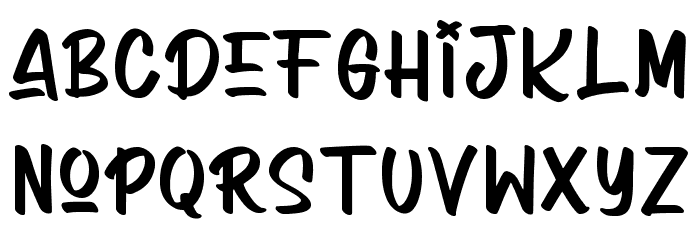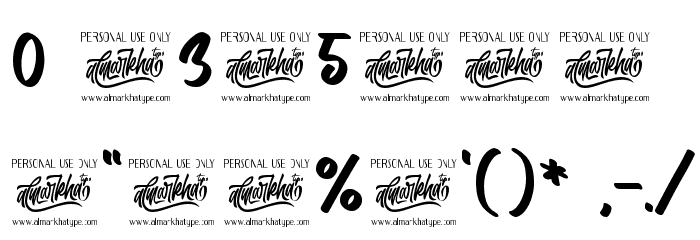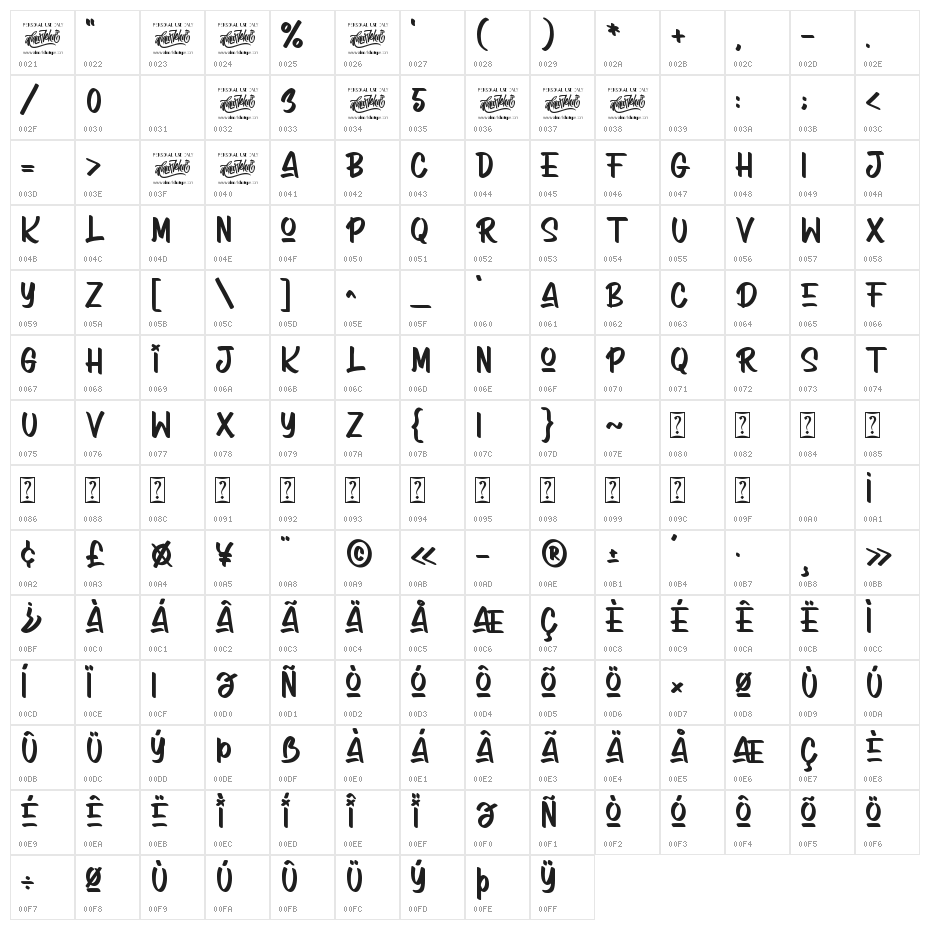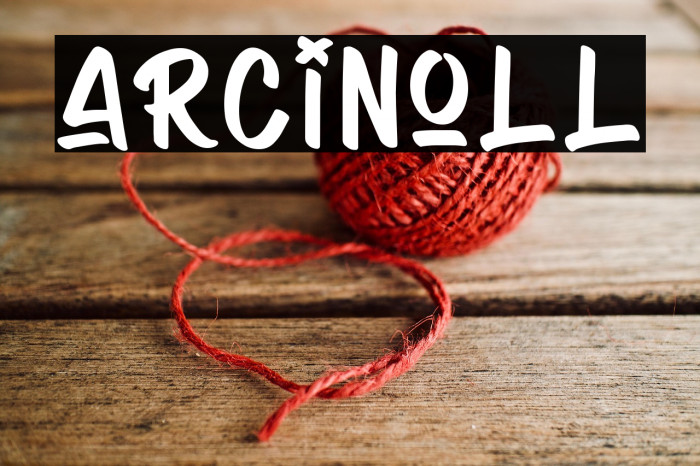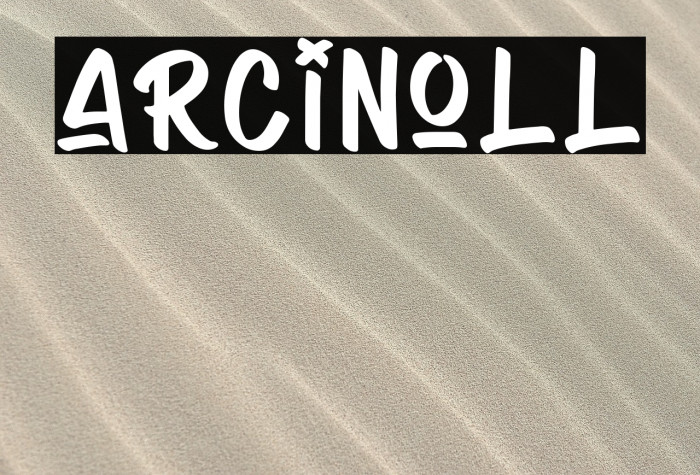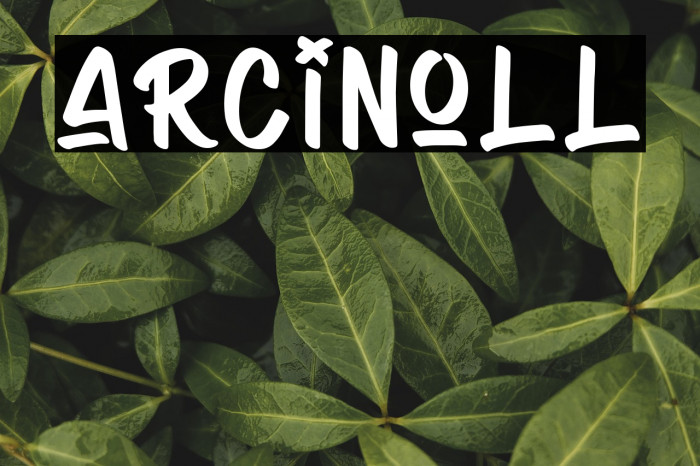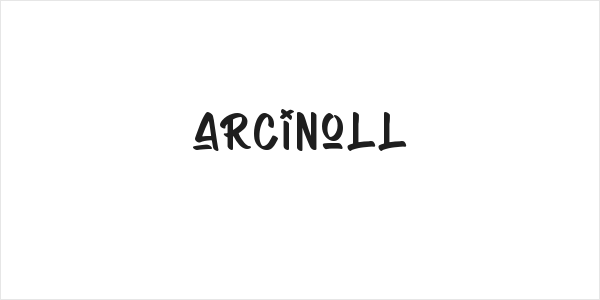
Arcinoll Font
This font features a bold and playful handwritten style, characterized by its thick strokes and slightly irregular shapes. The uppercase letters have a whimsical flair, with some letters featuring unique embellishments, such as the curved tail on the 'R' and the looped descender on the 'J'. The lowercase letters maintain the same playful aesthetic, with rounded forms and a consistent stroke weight. The numbers are equally bold and maintain the same handwritten quality, making them stand out. Special characters like the ampersand and percentage sign are creatively designed, adding to the font's overall charm. This font is ideal for projects that require a fun and informal touch.
A bold, playful handwritten font with thick strokes and whimsical character designs.
- Proposed Projects: Ideal for children's book covers, playful branding, greeting cards, and social media graphics.
- Category: Handwritten
- Overall Style: Playful, Informal